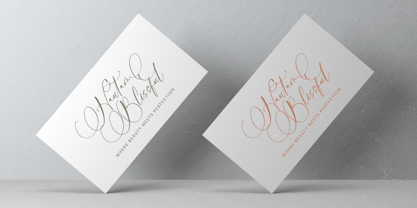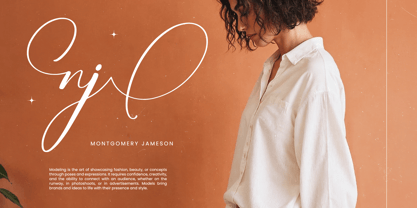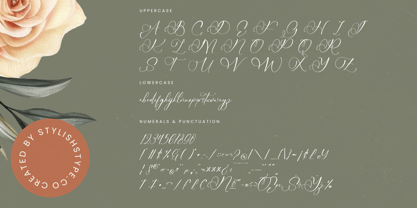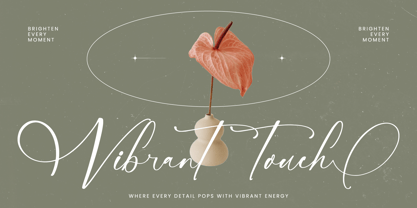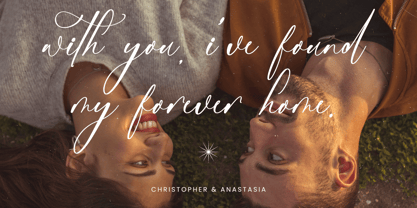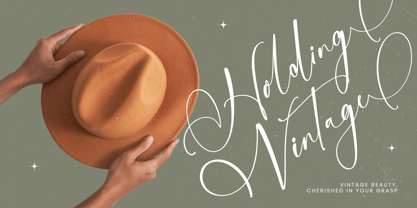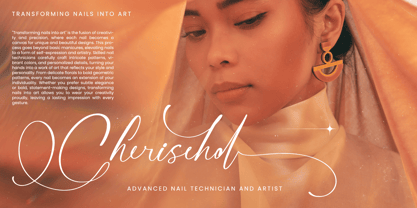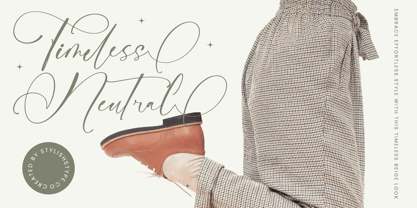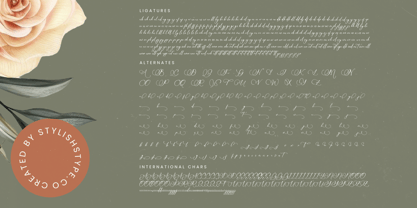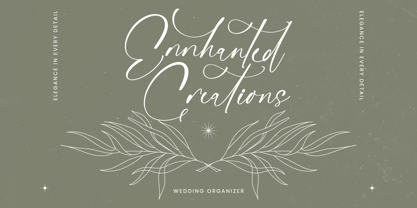
Nourisha Besthafi
by Stylishtype Studio
The Nourisha Besthafi Font Family was designed by Heru Utama Putra and published by Stylishtype Studio. Nourisha Besthafi contains 2 styles and family package options. More about this family
Nourisha Besthafi - Stylish Calligraphy Font , from Stylishtype, Suitable for any projects such as: logos, branding projects, homeware designs, product packaging, mugs, quotes, posters, shopping bags, t-shirts, book covers, name card, invitation cards, greeting cards, label, photography, watermark, special events, and all your other luxury and beautiful projects that need a Luxury Script taste.